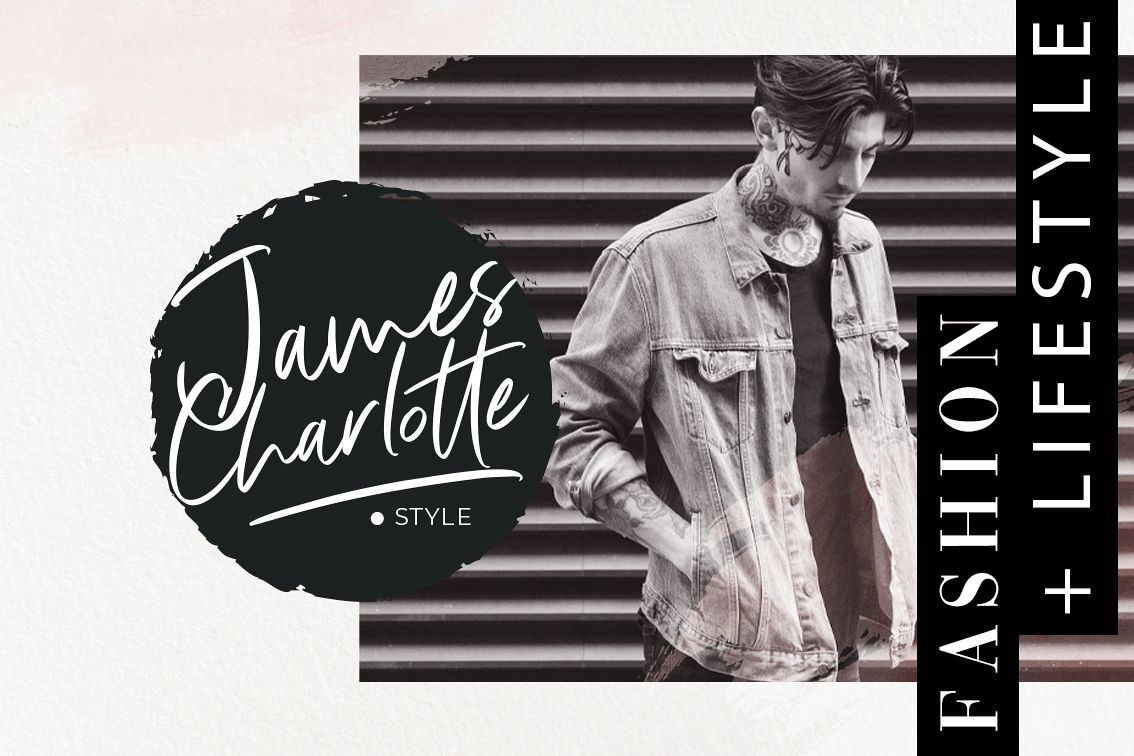
Created By Cotbada Studio
Light Heart
**"Light Heart "** is a handwritten brush typeface. Its classy energetic look makes it the perfect fit for  logos, printed quotes, invitation cards, social media headers, product packaging and a lot more!
- Ligatures Collection
- Upper + Lowercase / Alternate